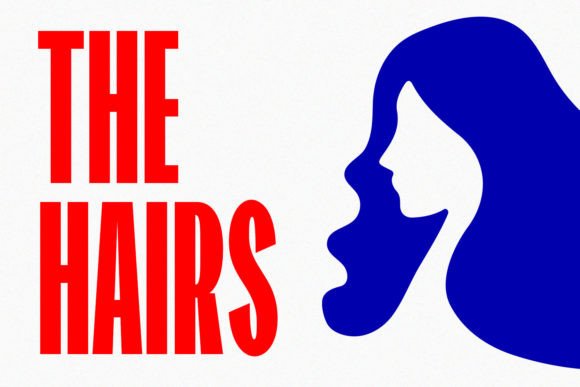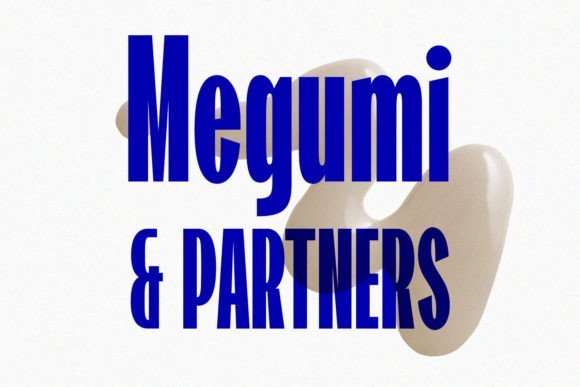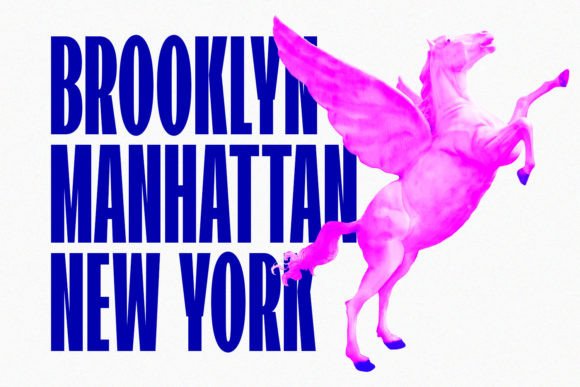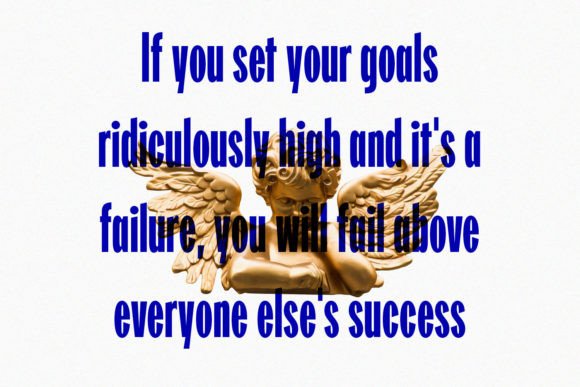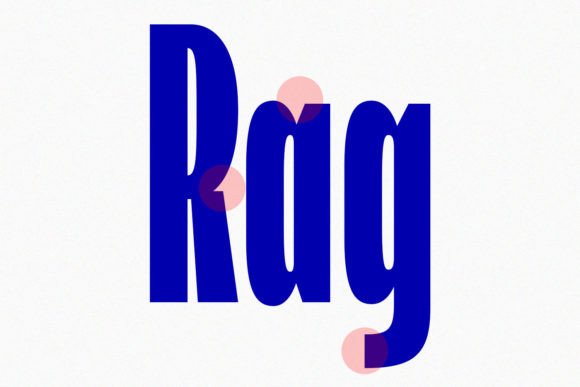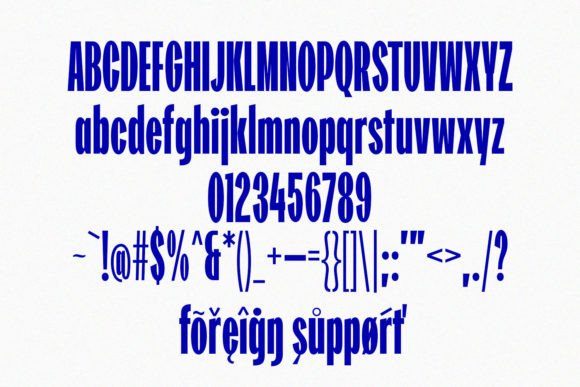
Introduction to Reprizo Font
Enter the Reprizo Font, a modern condensed sans display font that’s sure to elevate your creative project. With its bold stroke and fun character, Reprizo Font is perfect for logo design, social media, movie titles, book titles, and even short or long text. Plus, its ligatures and alternates add an extra layer of sophistication, making it a valuable resource for designers.
Honest Review: Reprizo Font
As a designer, I’ve had the pleasure of working with numerous fonts, and the Reprizo Font is definitely one that stands out from the crowd. I was initially drawn to it for its unique, modern aesthetic, and I was excited to dive in and see what it could do for my creative project.
One of the things that works well about the Reprizo Font is its versatility. It’s perfect for use in a variety of design contexts, from logos and branding to web design and even print materials. The font is incredibly high quality, with crisp lines and a transparent background that makes it easy to work with.
Here are some of the things I love about the Reprizo Font:
- ✨ Easy to read and understand, even at small font sizes
- ✨ Perfect for creating a modern and sleek design
- ⚠️ Limited character set, which may not be ideal for more complex projects
- ⚠️ May not be suitable for use in certain design contexts, such as very formal or traditional projects
Overall, I’m really impressed with the Reprizo Font. It’s a great addition to any design resource, and I would definitely recommend it to other designers looking for a high-quality, modern font.
Tips for Getting the Most Out of Reprizo Font
To maximize the Reprizo Font’s potential, experiment with different font sizes, colors, and layering techniques. The font’s versatility makes it suitable for a wide range of design projects.
The Reprizo Font is commonly used in graphic design, branding, and digital marketing. Its high-quality design and transparent background make it an ideal choice for creative projects requiring a unique and visually appealing font.